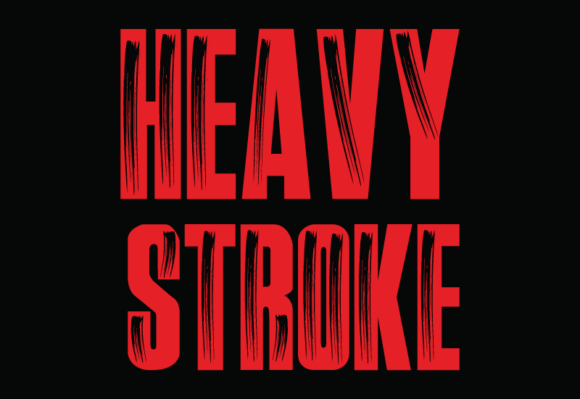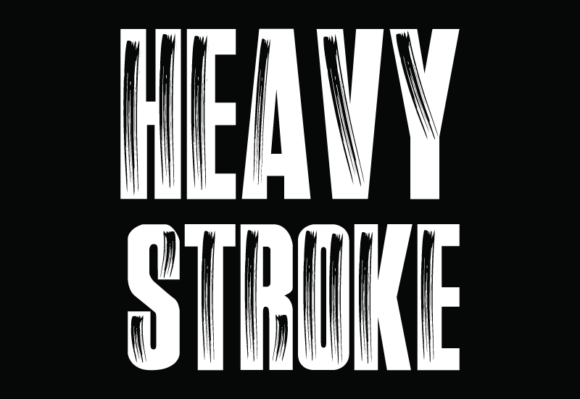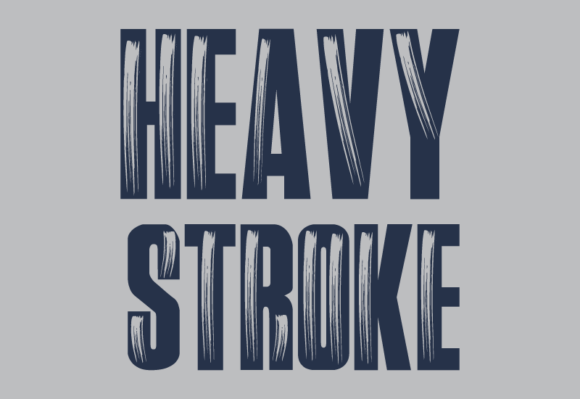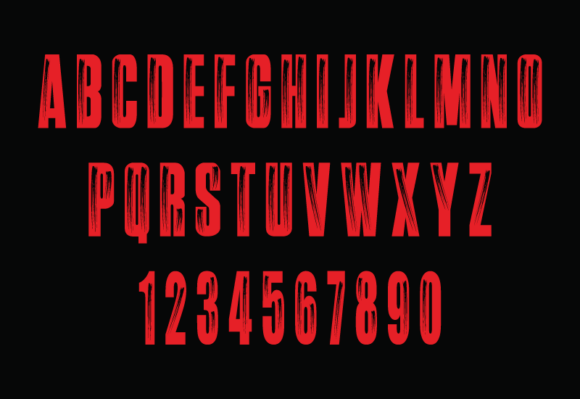
Introduction to Heavy Stroke Font
Remember the moment when you’re brainstorming a creative project and you need a typeface that screams ‘I’m here to make a statement’? That’s exactly where the Heavy Stroke Font comes in – a commanding display font that’s not afraid to be bold. Its raw, rugged lines and distressed texture give it a unique aesthetic that’s hard to ignore.
Key Features of Heavy Stroke Font
- High-quality, bold font design ideal for creative projects requiring a strong visual impact.
- Comes with a transparent background, allowing for easy customization and blending with various design elements.
- Unique characteristics include thick, bold lines and a modern aesthetic, making it suitable for a wide range of design applications.
Honest Review: Heavy Stroke Font
I recently stumbled upon the Heavy Stroke Font and I must say, it’s been a game-changer for my creative projects. The high quality design and bold strokes make it perfect for any project that requires a striking visual impact.
One of the things that works well for the Heavy Stroke Font is its versatility. It’s perfect for creating bold headlines, titles, or even for use as a design element in a logo. I’ve also used it to create a transparent background for a website design, and it looks amazing!
- ✨ High-quality design that looks professional and polished
- ✨ Versatile and can be used for a variety of creative projects
However, I do have to mention a few limitations. The font is not suitable for use in small text sizes, as the bold strokes can become overwhelming. Additionally, some users may find the font too bold or overpowering.
- ⚠️ Not suitable for use in small text sizes
- ⚠️ May be too bold or overpowering for some users
Overall, I’m thoroughly impressed with the Heavy Stroke Font. It’s a high-quality design resource that’s perfect for any creative project. I highly recommend it to anyone looking for a bold and striking font.
The Heavy Stroke Font is a versatile design resource ideal for creative projects that require a high-quality, eye-catching text. With its bold strokes and clean lines, it’s perfect for creating striking visuals in various applications.
For the best results, use the Heavy Stroke Font on a transparent background to create a striking contrast. You can also experiment with different font sizes and styles to add visual interest to your design.
Common Use Cases for Heavy Stroke Font
The Heavy Stroke Font is ideal for creating attention-grabbing headlines, titles, and captions for various creative projects, such as social media graphics, posters, and flyers.
Can I use the Heavy Stroke Font with a transparent background?
Yes, the Heavy Stroke Font is designed to be used with a transparent background, making it ideal for use in digital applications, such as web design, where you can use the font on a transparent background to create a sense of depth and dimensionality. You can also use the font with a transparent background in graphic design and digital art projects to create a sense of layering and visual interest.